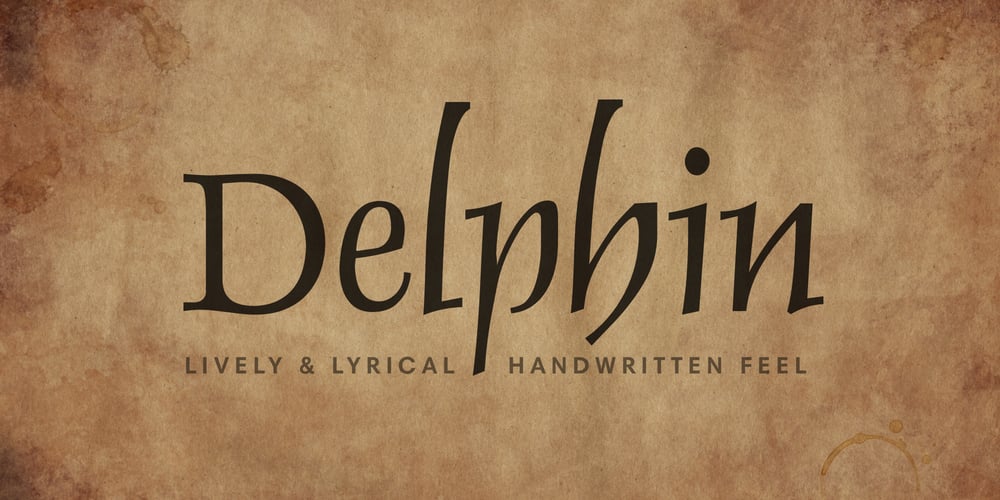
Delphin LT Font Family was designed by Georg Trump and published by Linotype. Delphin LT contains 2 styles and family package options. Introduced by the font foundry C.E. Weber in 1951 and 1955, Delphin was designed by Georg Trump and cut by Egon Graf. Its lower case letters have a handwritten feel which contrasts nicely with the straighter, relatively small capitals. Delphin has a lyric character particularly suited for poetic texts.